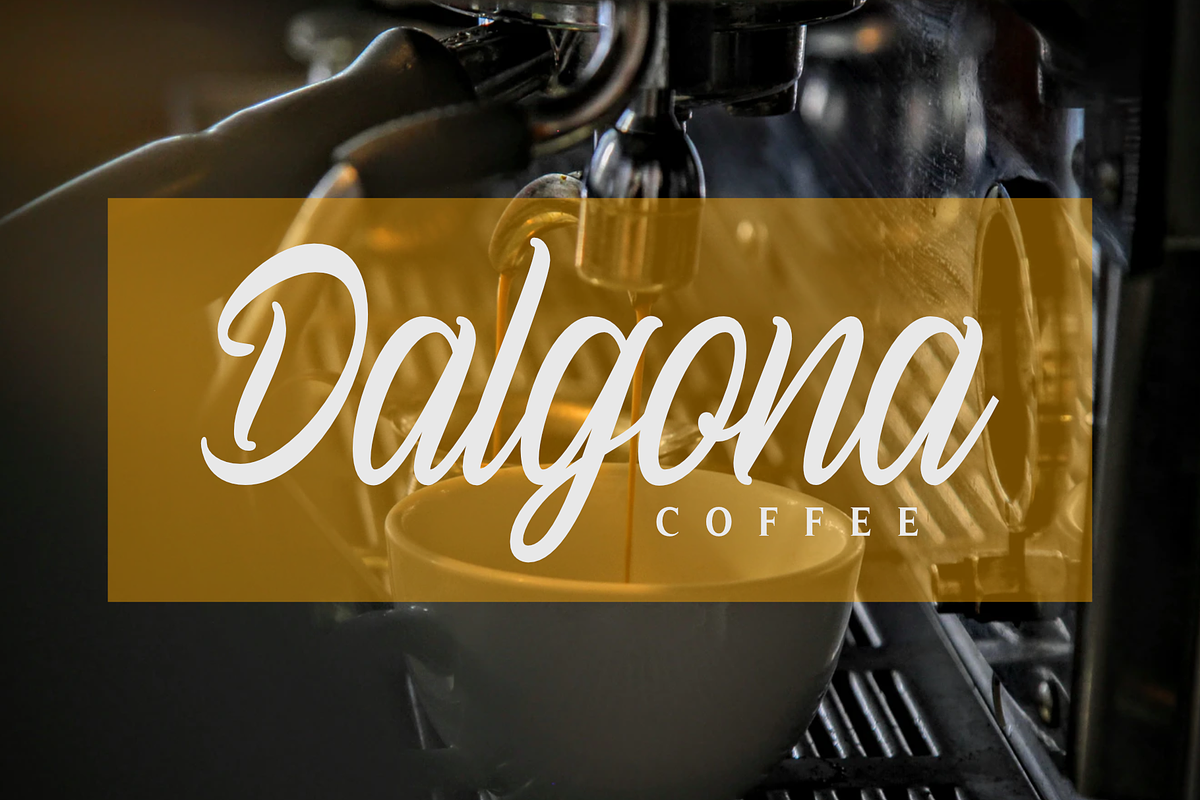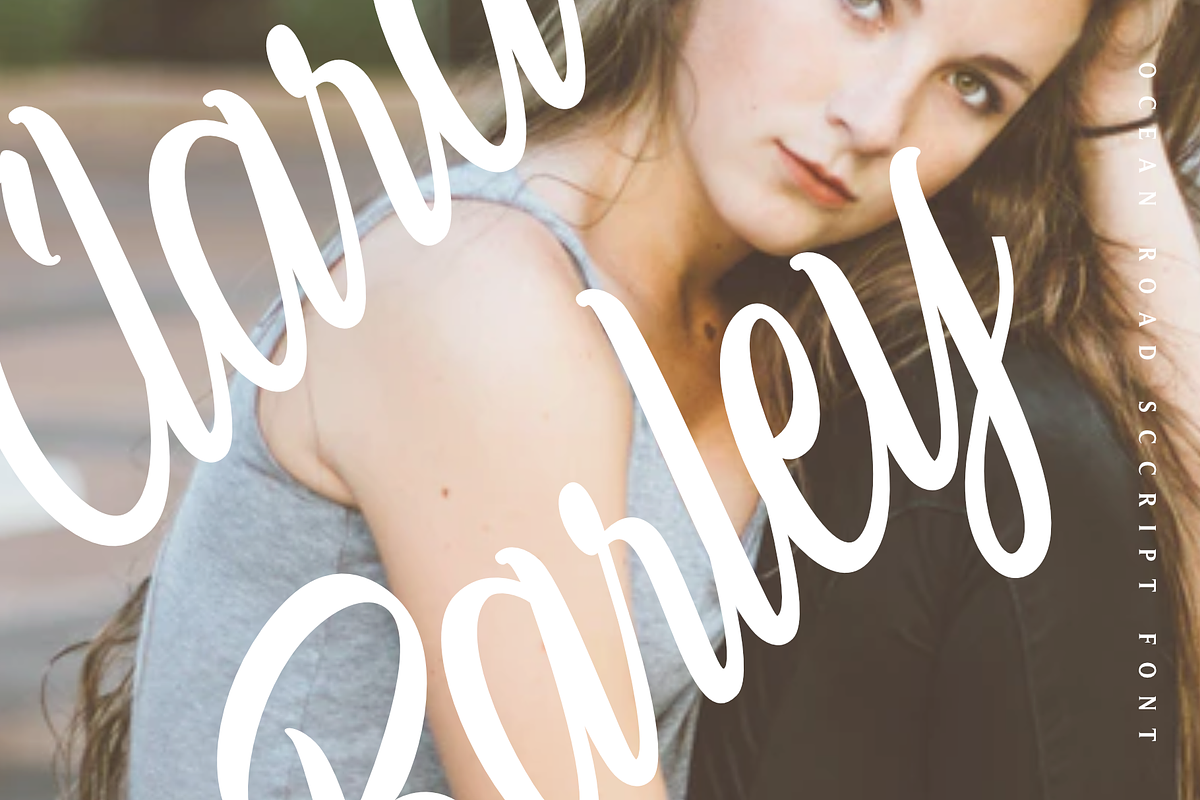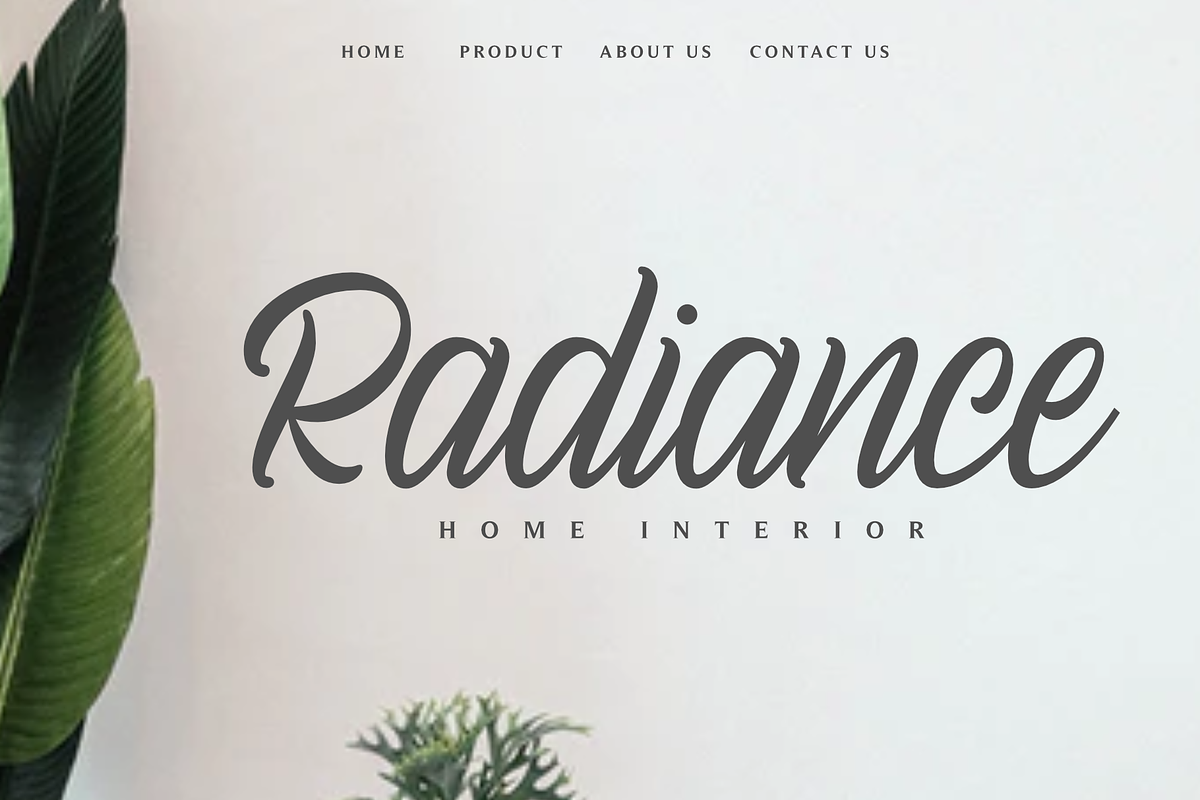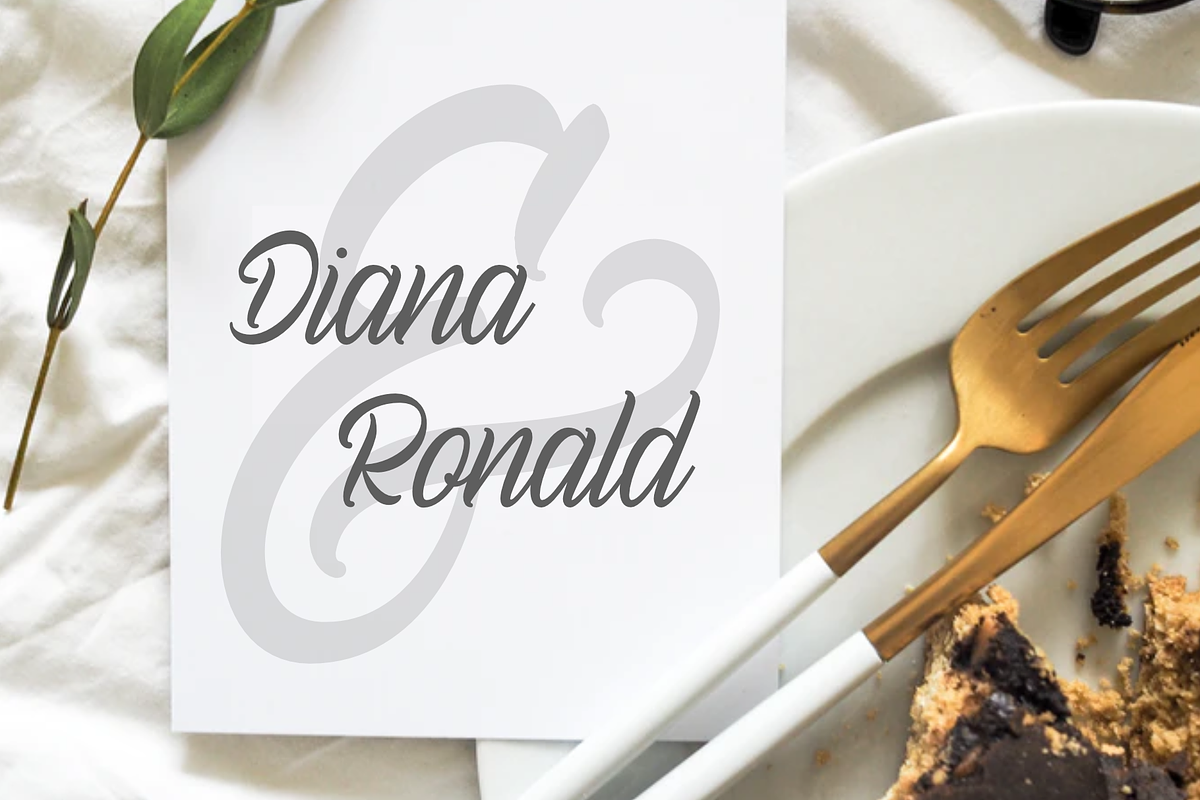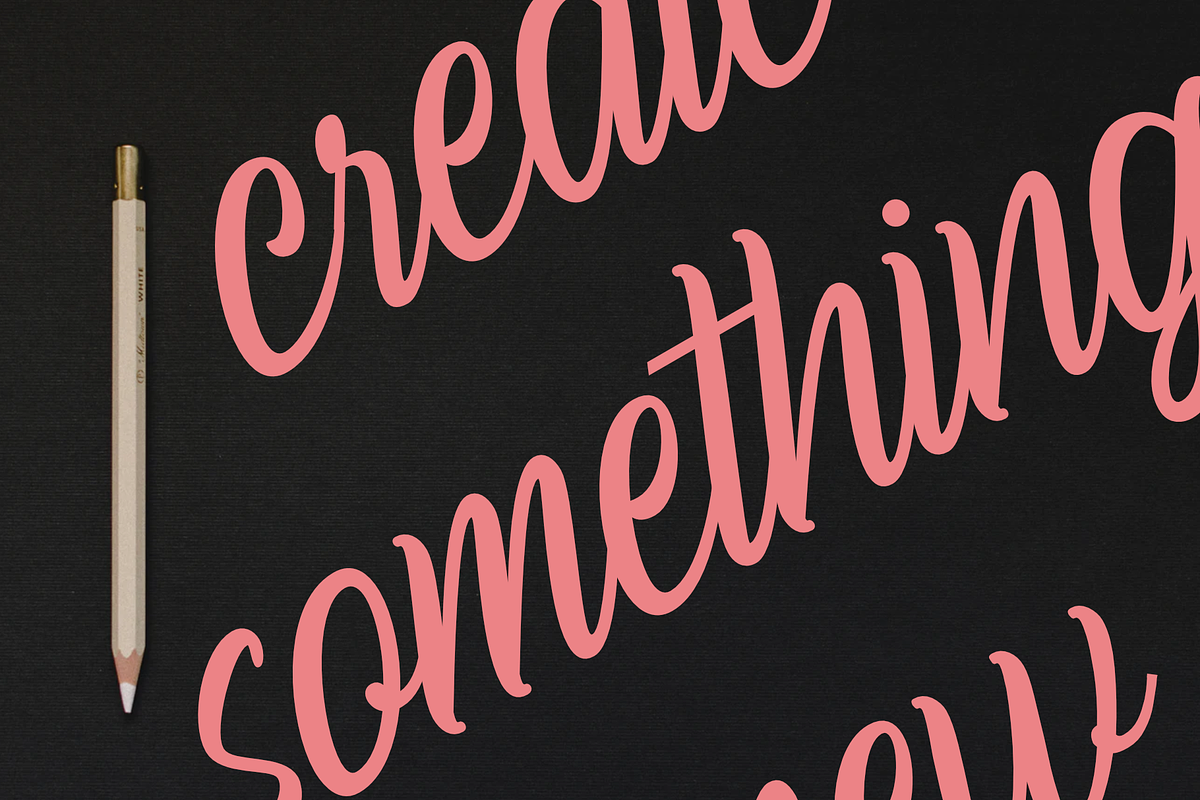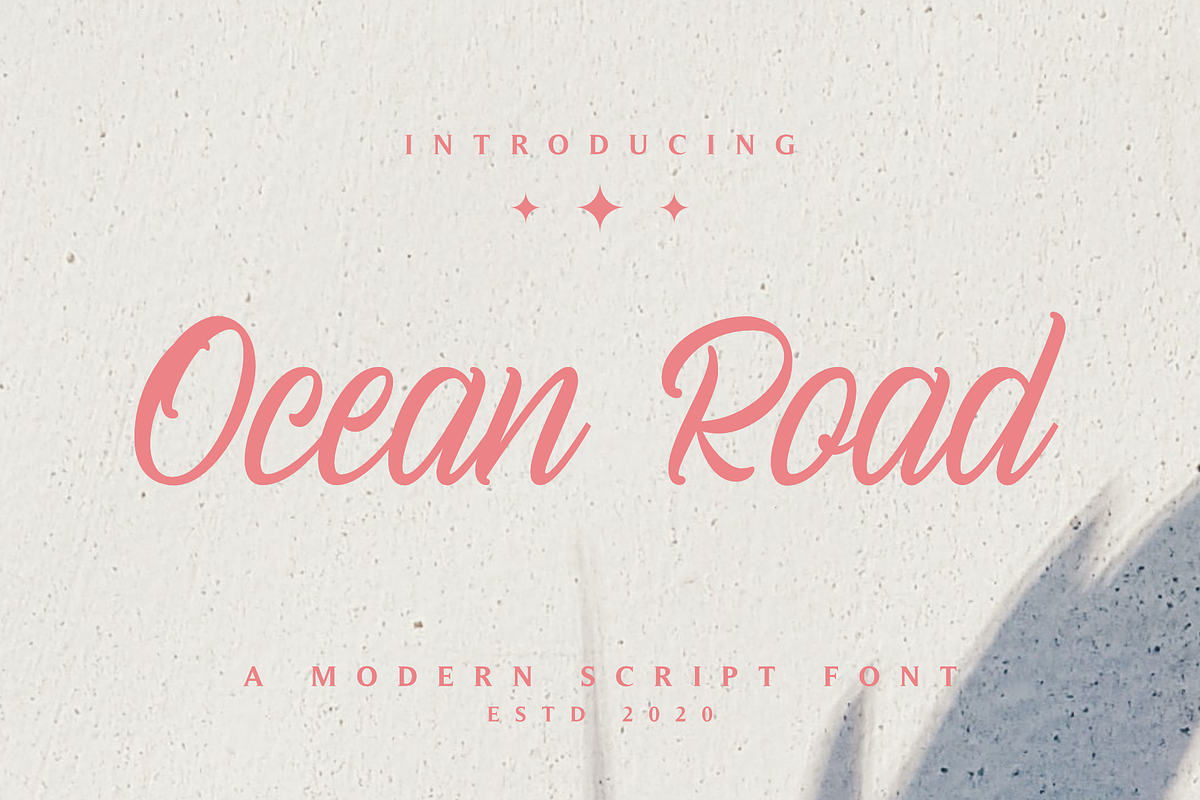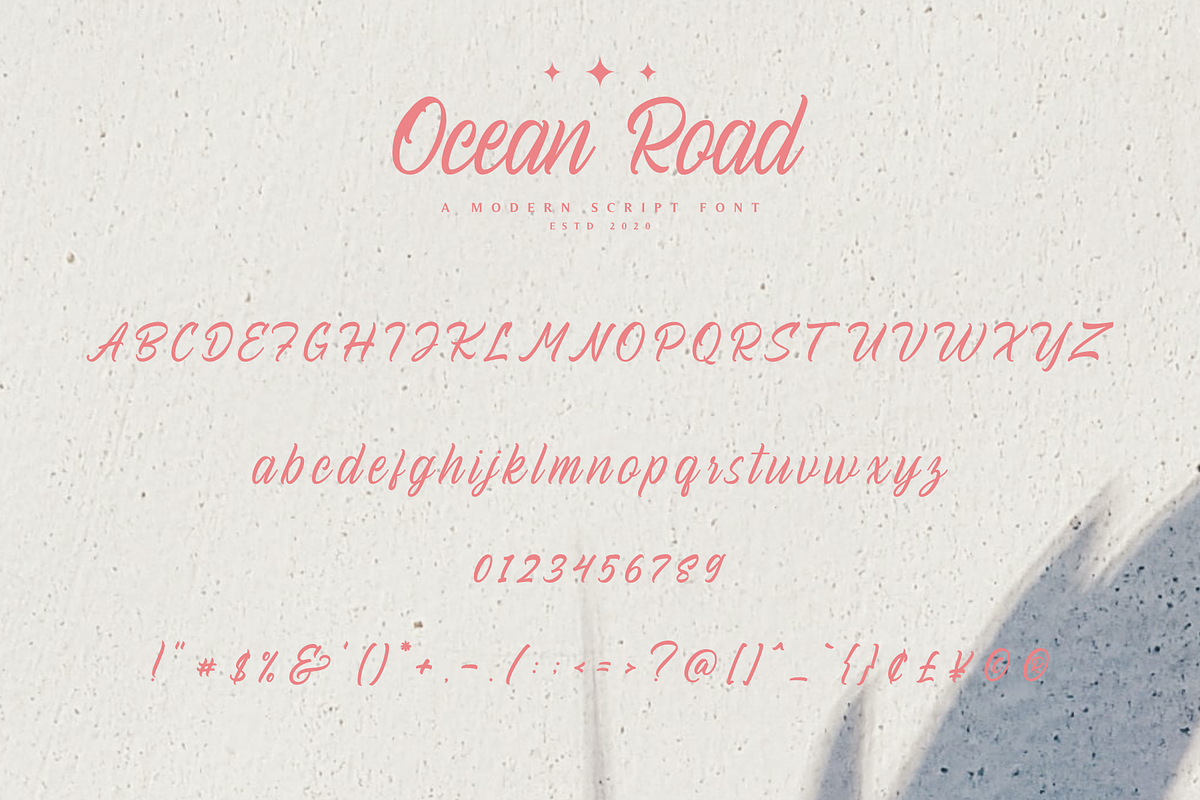
Ocean Road - A Modern Script Font
Introducing our newest font called Ocean Road. this is modern calligraphy font that perfect logo, poster, and many others. let's make world more special with Ocean Road.
Why Ocean Road - A Modern Script Font is worth a look
Ocean Road - A Modern Script Font by Pen Culture fits naturally into Branding, posters, packaging, typography.